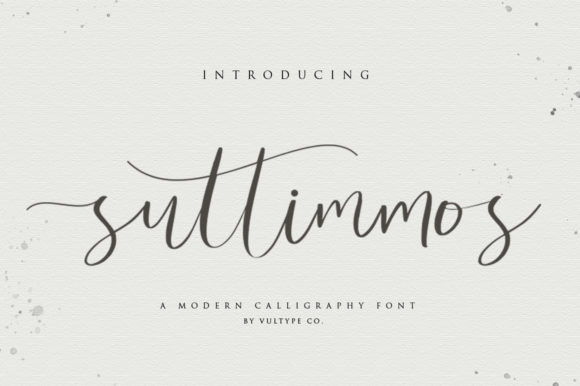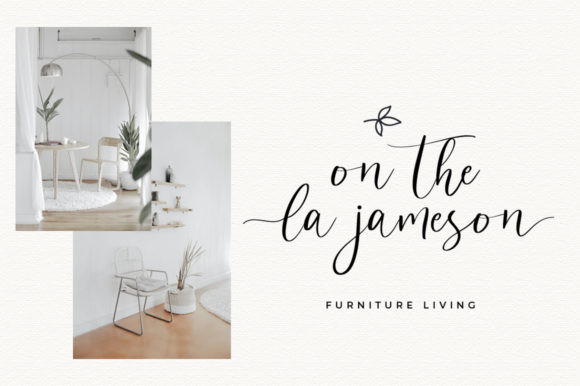
suttimos Font
Suttimmos is a delicate and elegant handwritten font. It is PUA encoded, which means that you can access all of the glyphs and swashes with ease! It features a varying baseline, smooth lines, gorgeous glyphs and stunning alternates. Fall in love with its unique style and use it to create spectacular designs!